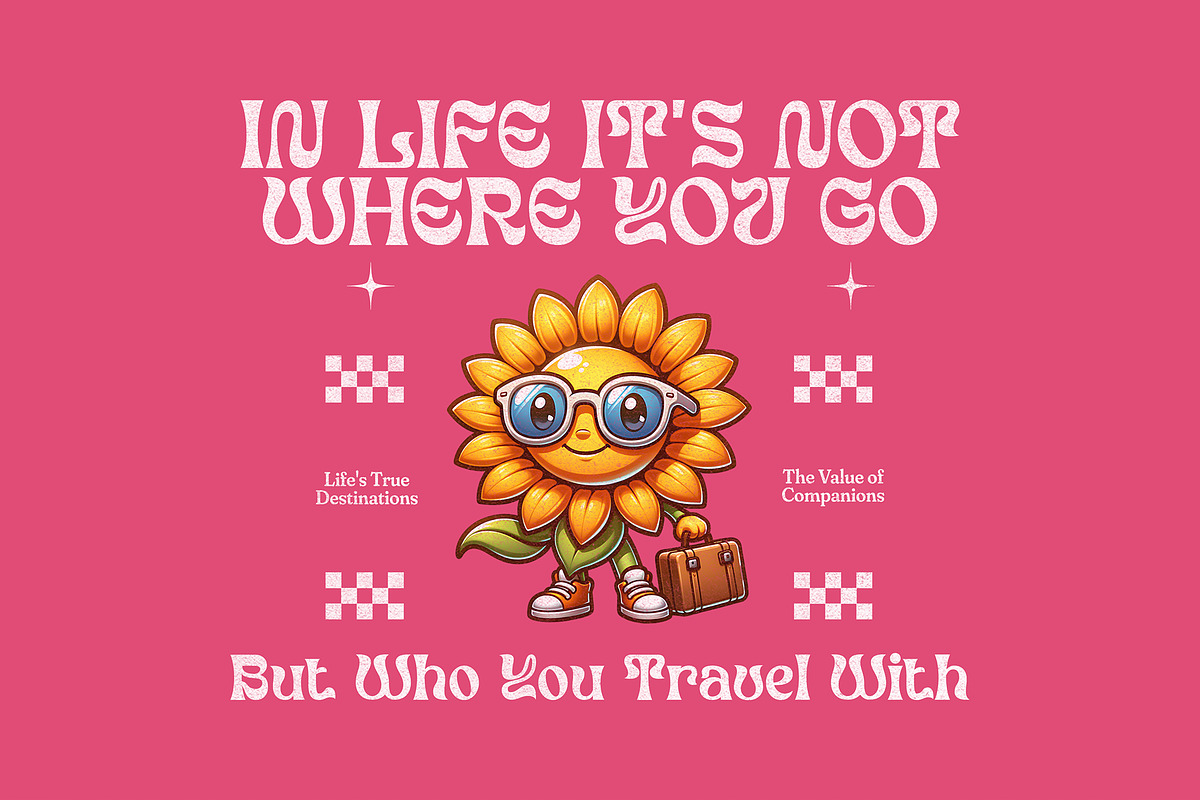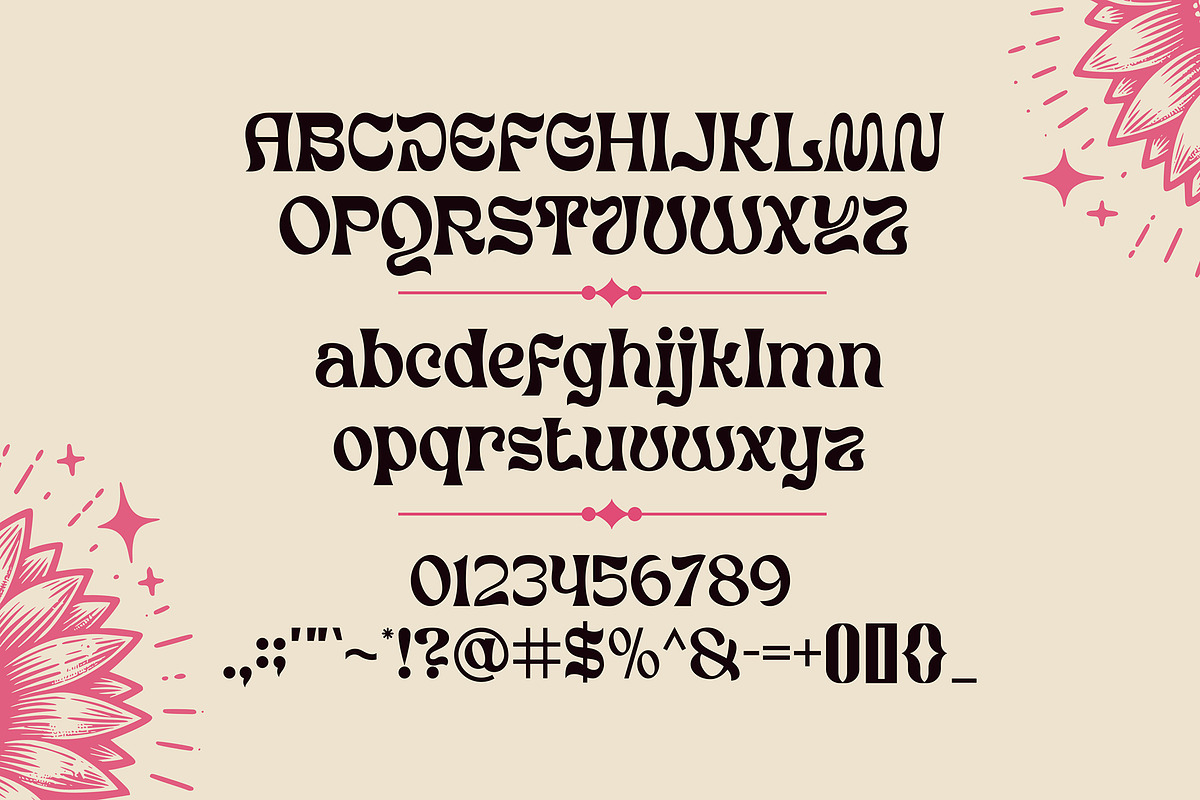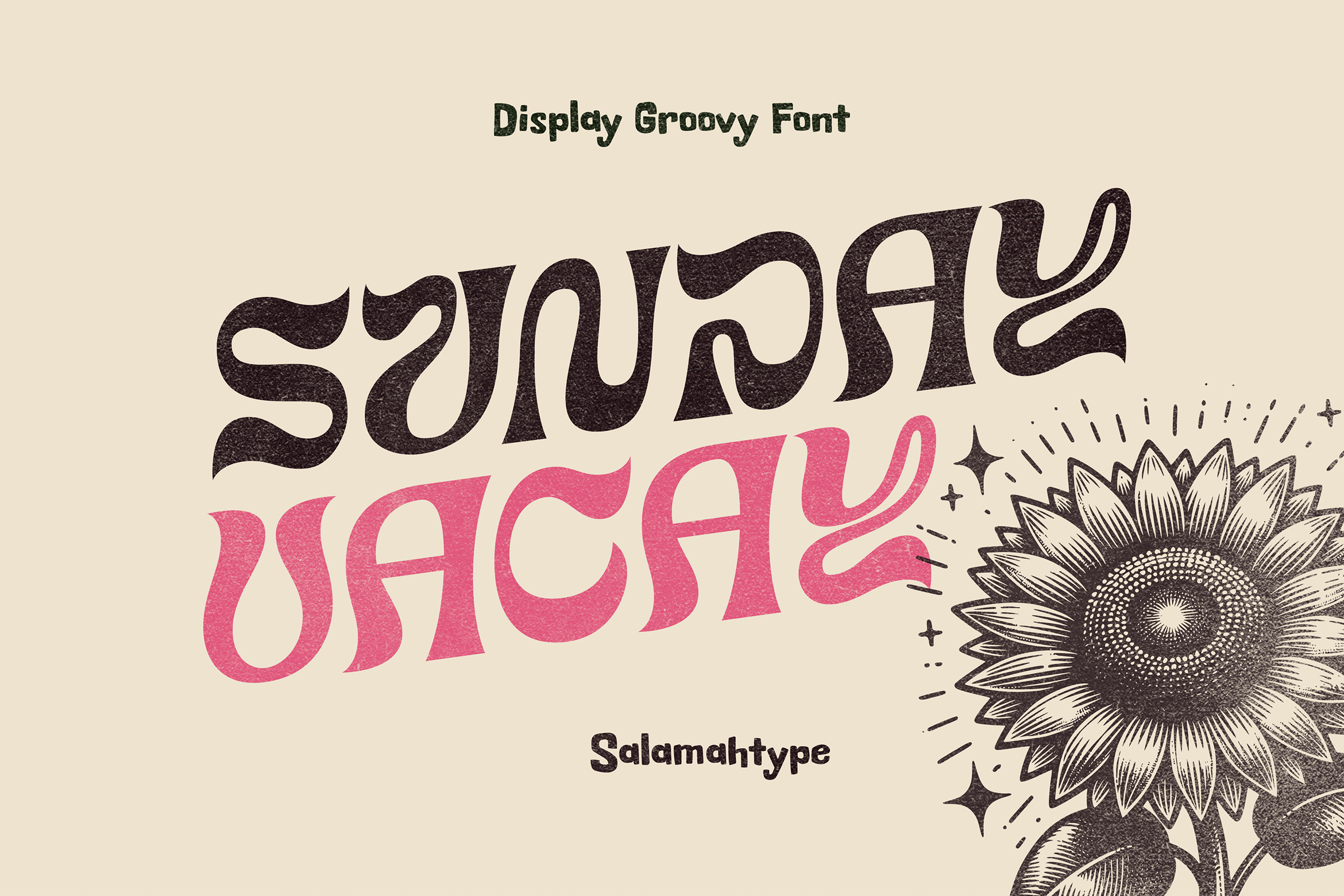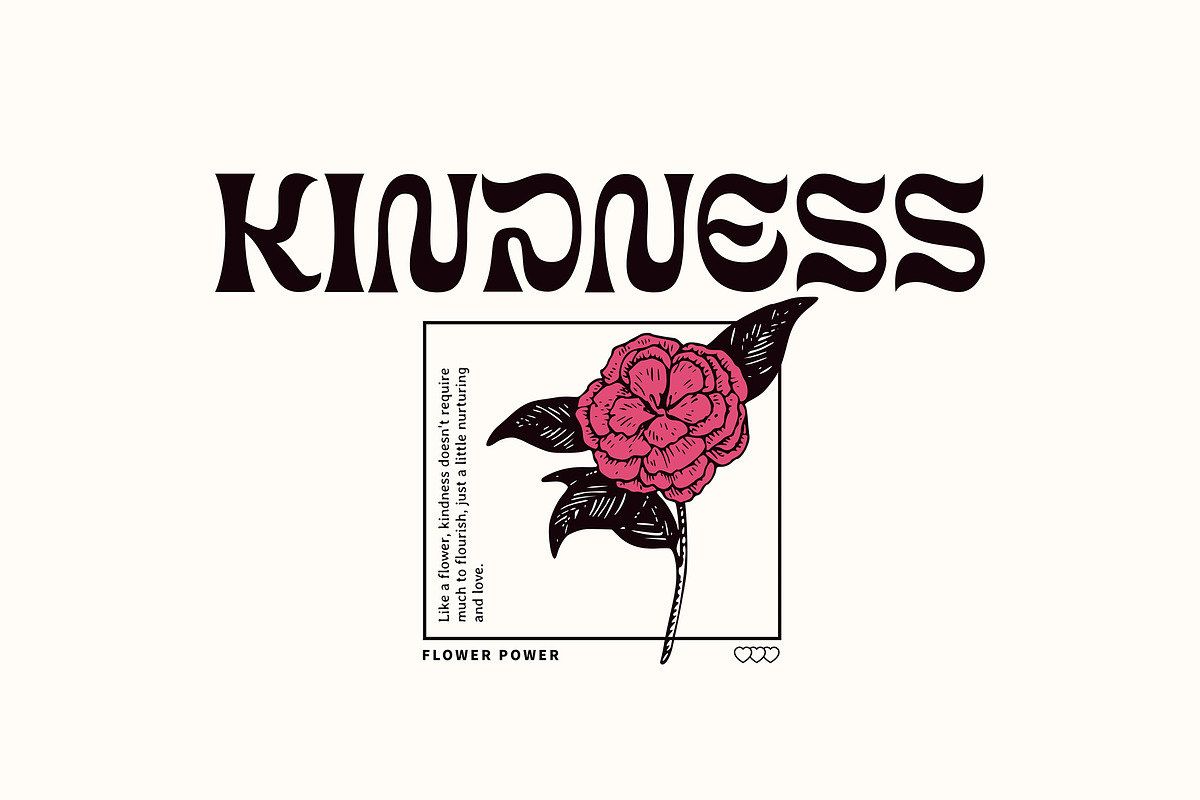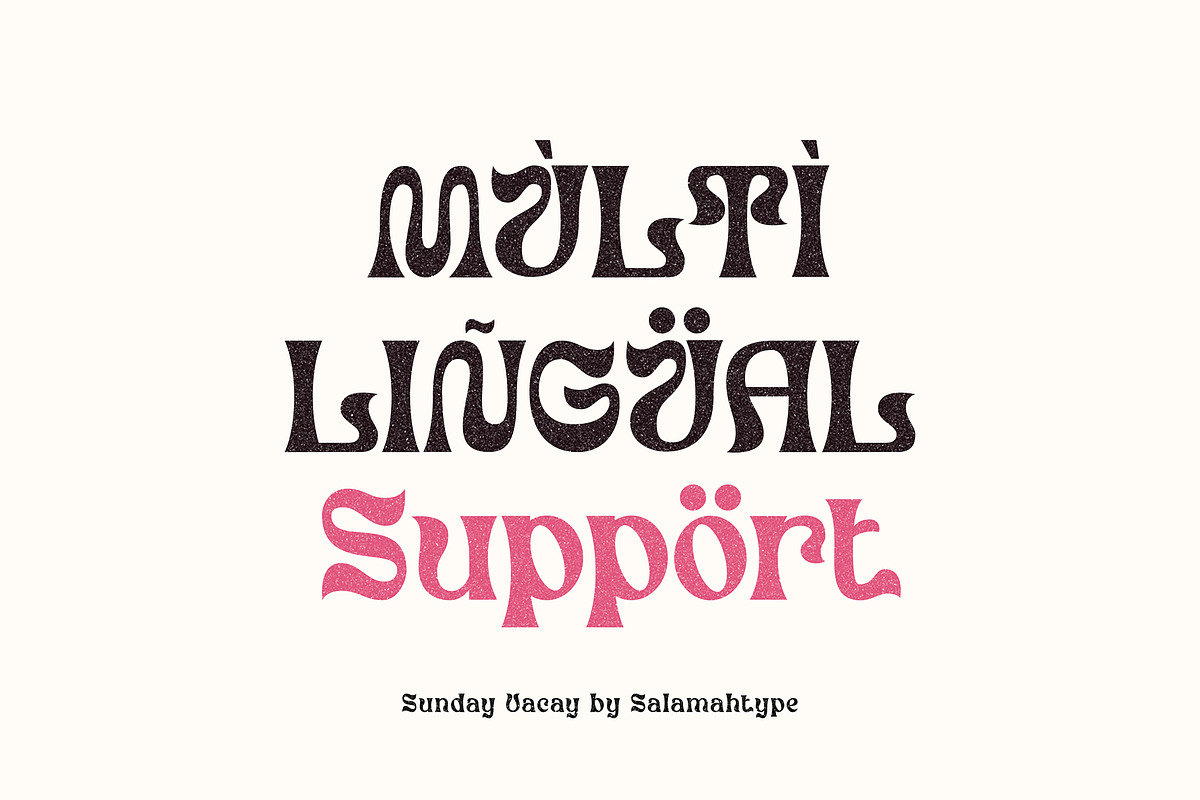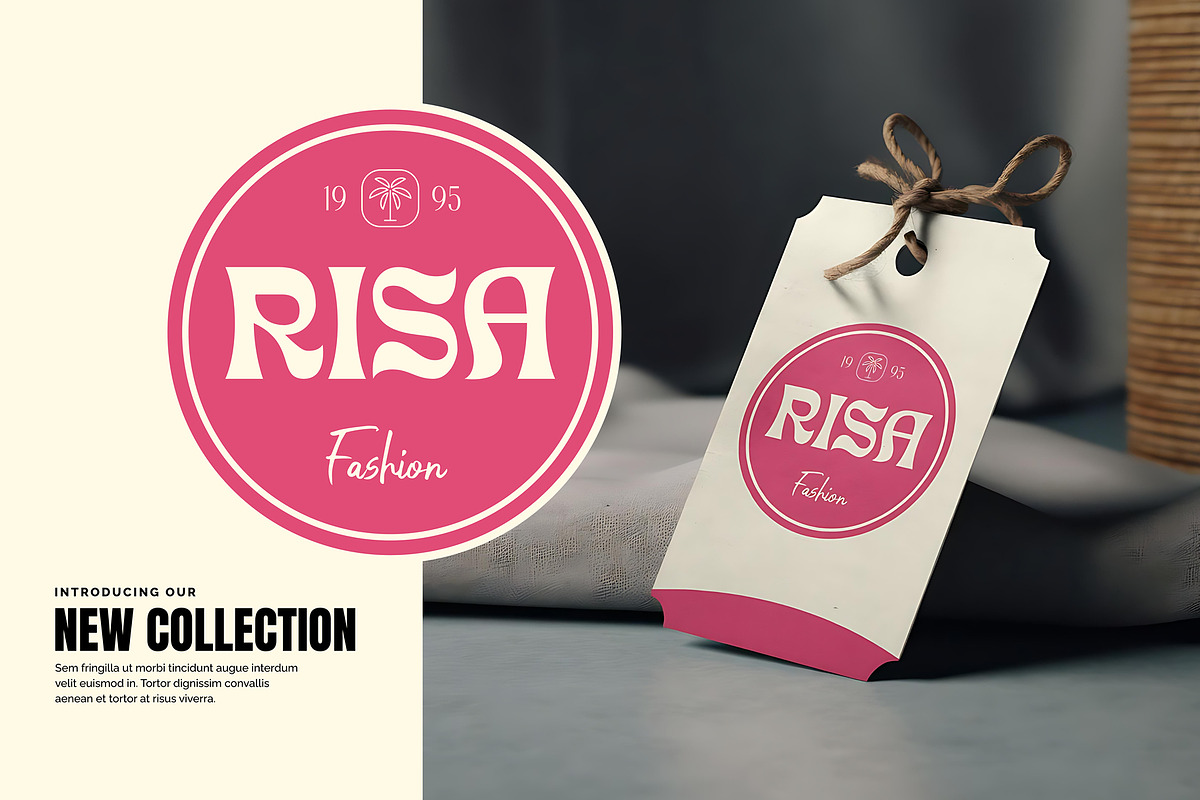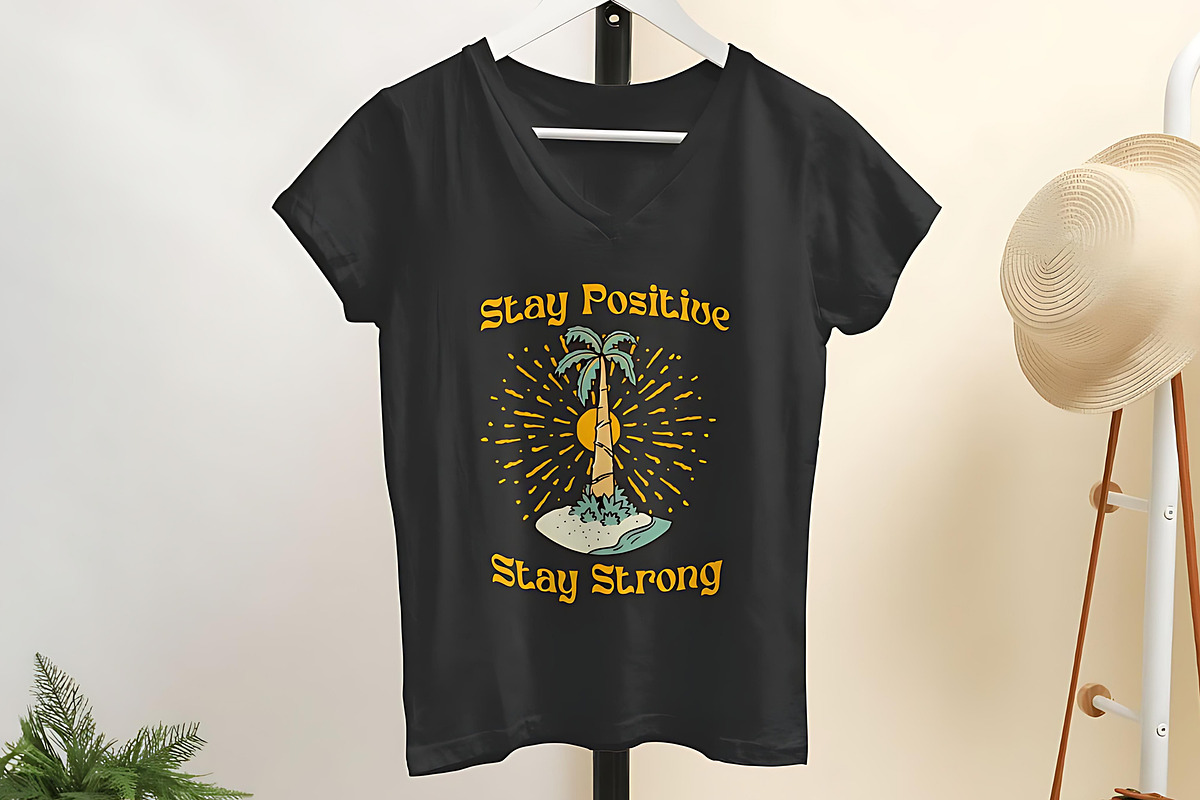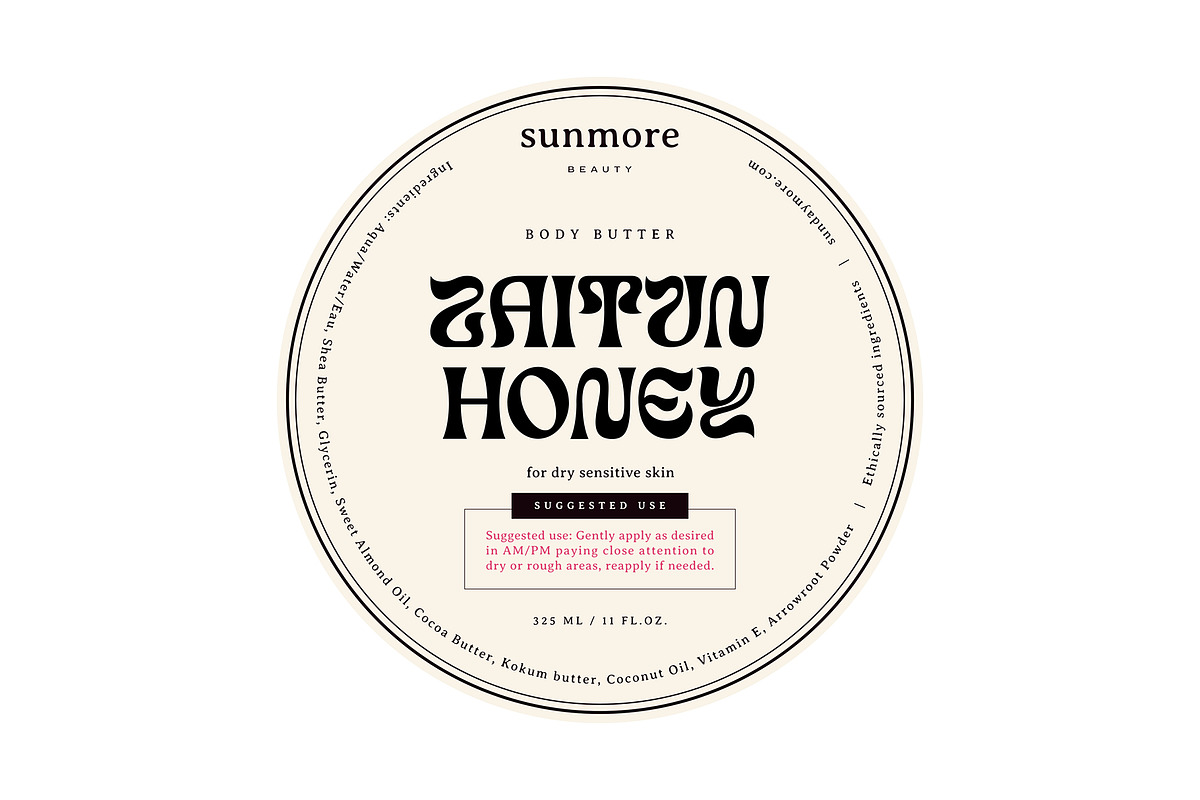
Sunday Vacay Display Font
“Sunday Vacay” is a groovy and fun font perfect for adding a touch of flair to tags, labels, logos, brand names, magazines, and more. Its playful design and vibrant style make it ideal for any project that needs a lively and eye-catching touch.
Features: – Uppercase and Lowercase – Numbers, symbols and Punctuation – Multilingual Support